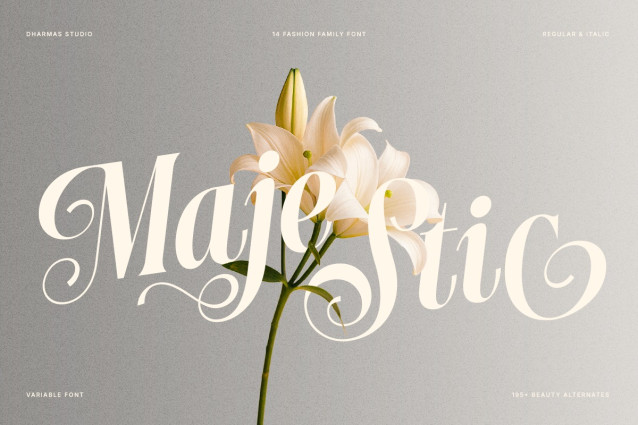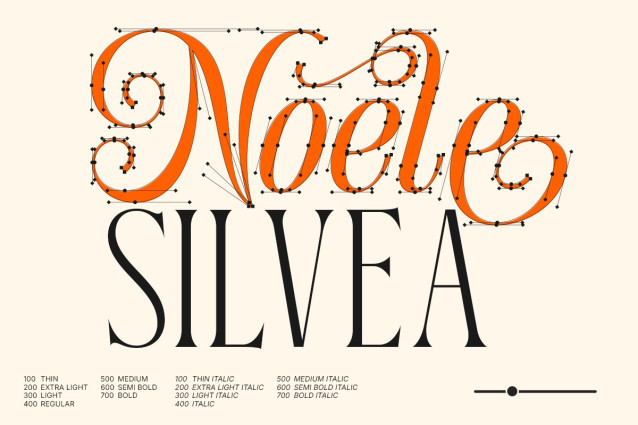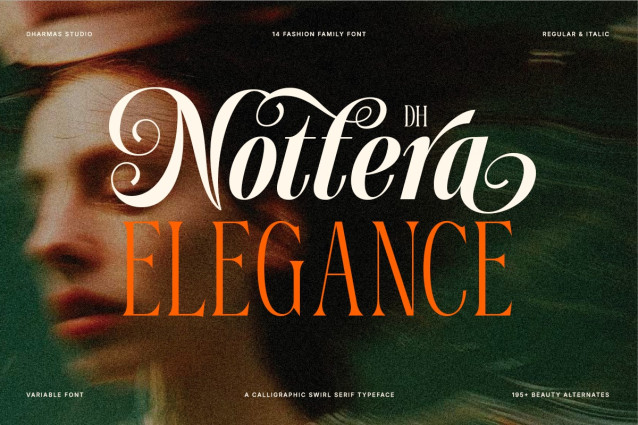
Dh Nottera Elegance Font
Dh Nottera Elegance Font is a luxurious fashion serif font designed to express beauty, grace, and timeless sophistication. Featuring high-contrast strokes, flowing curves, and refined details, this typeface is perfect for fashion editorials, beauty branding, cosmetic packaging, luxury logos, magazines, and elegant social media designs. Its classic yet modern character delivers a premium look that elevates every composition.